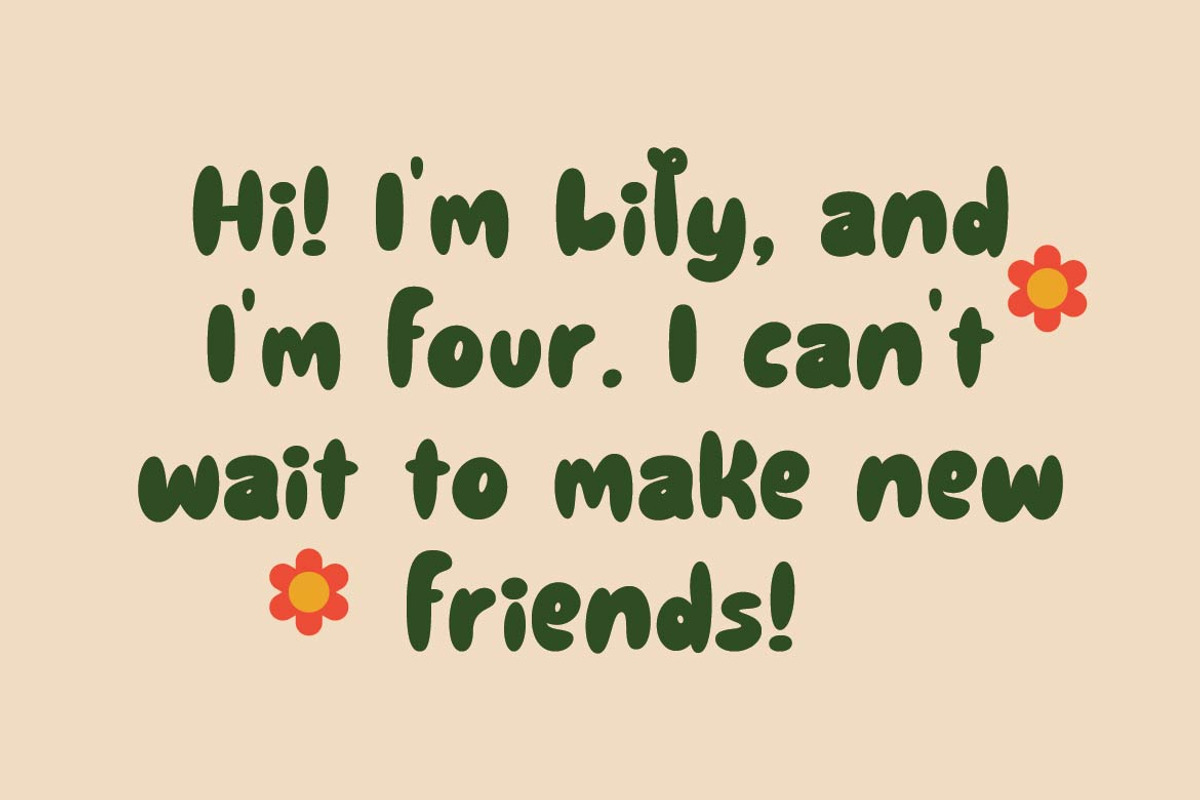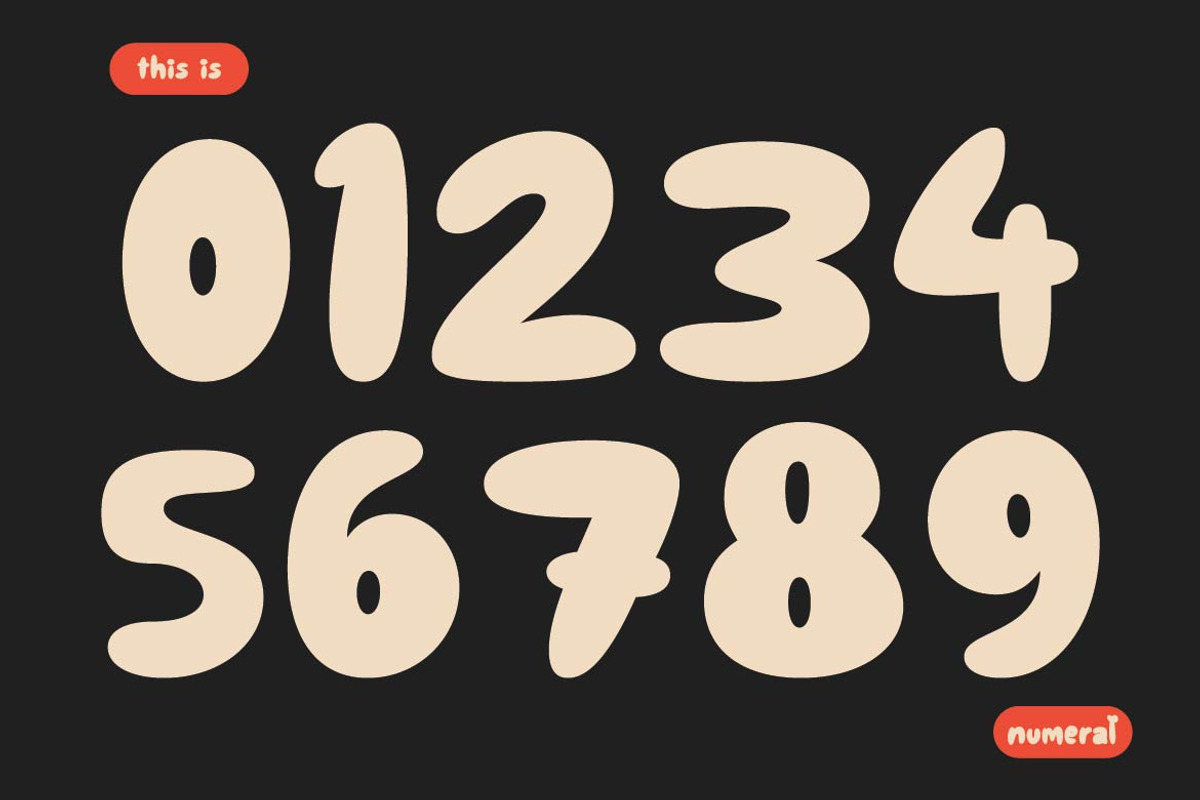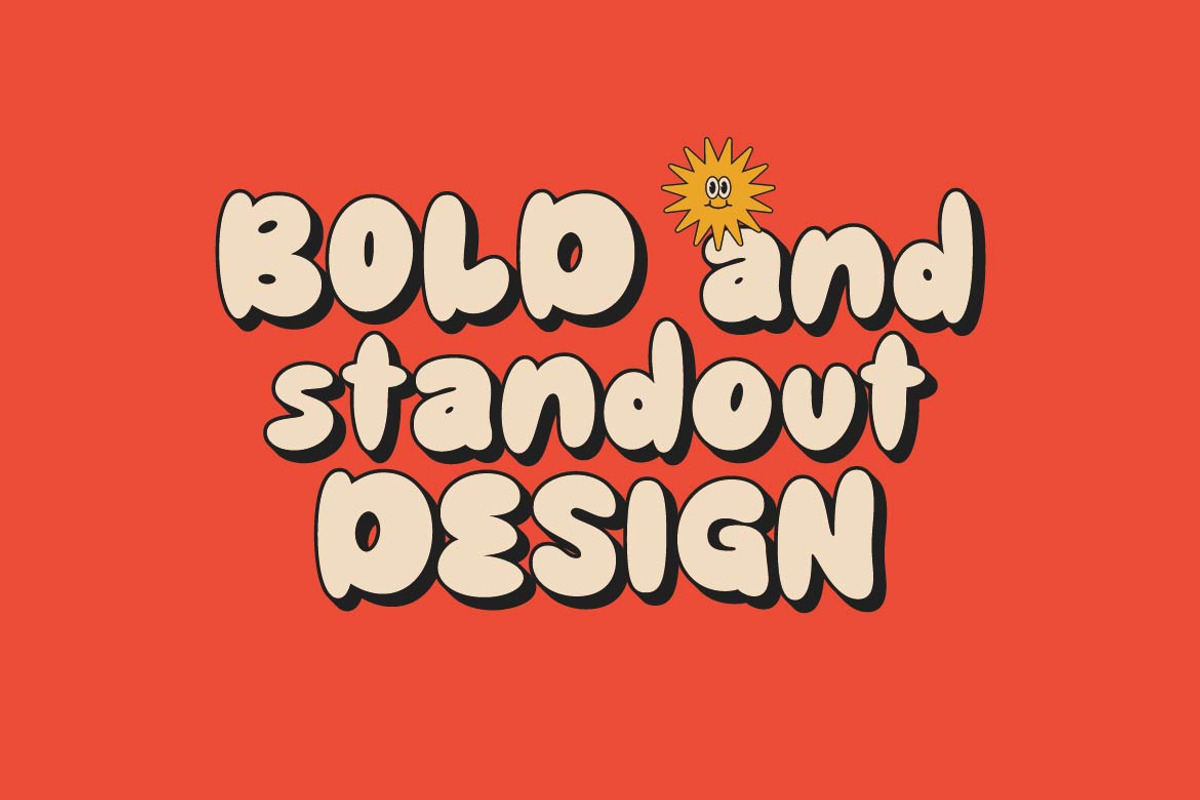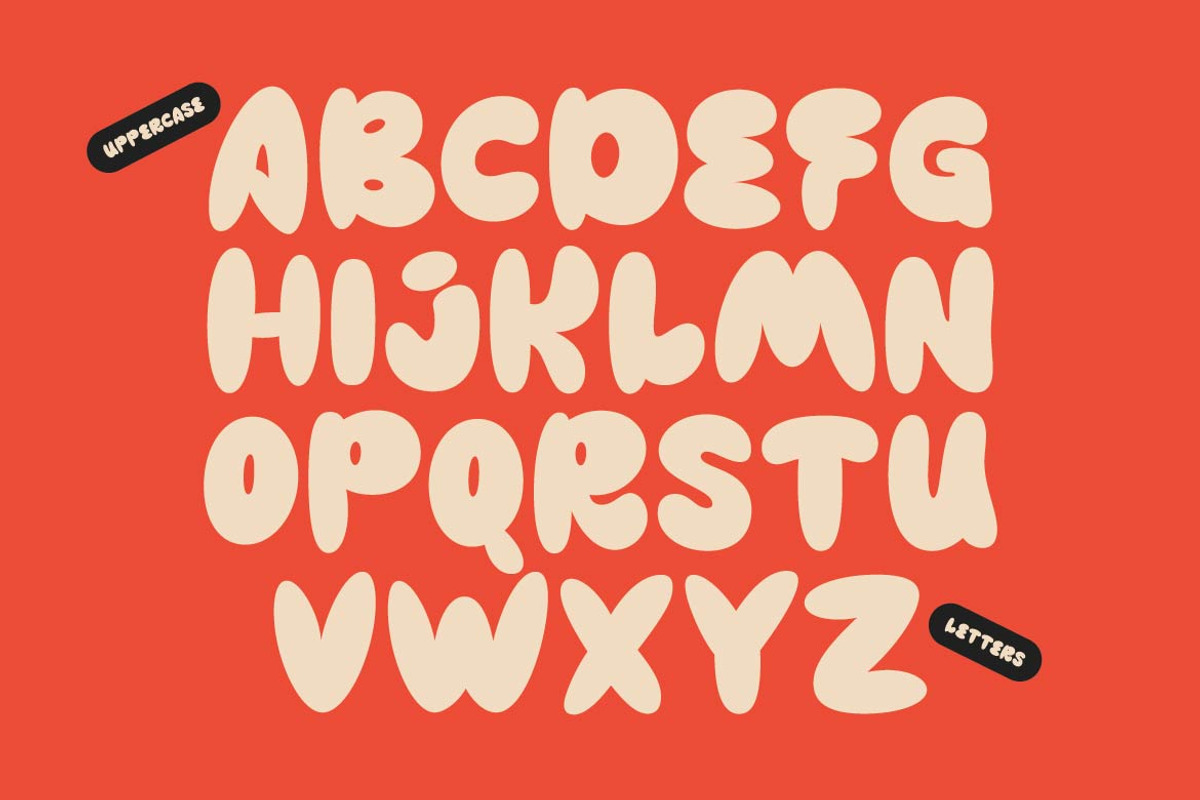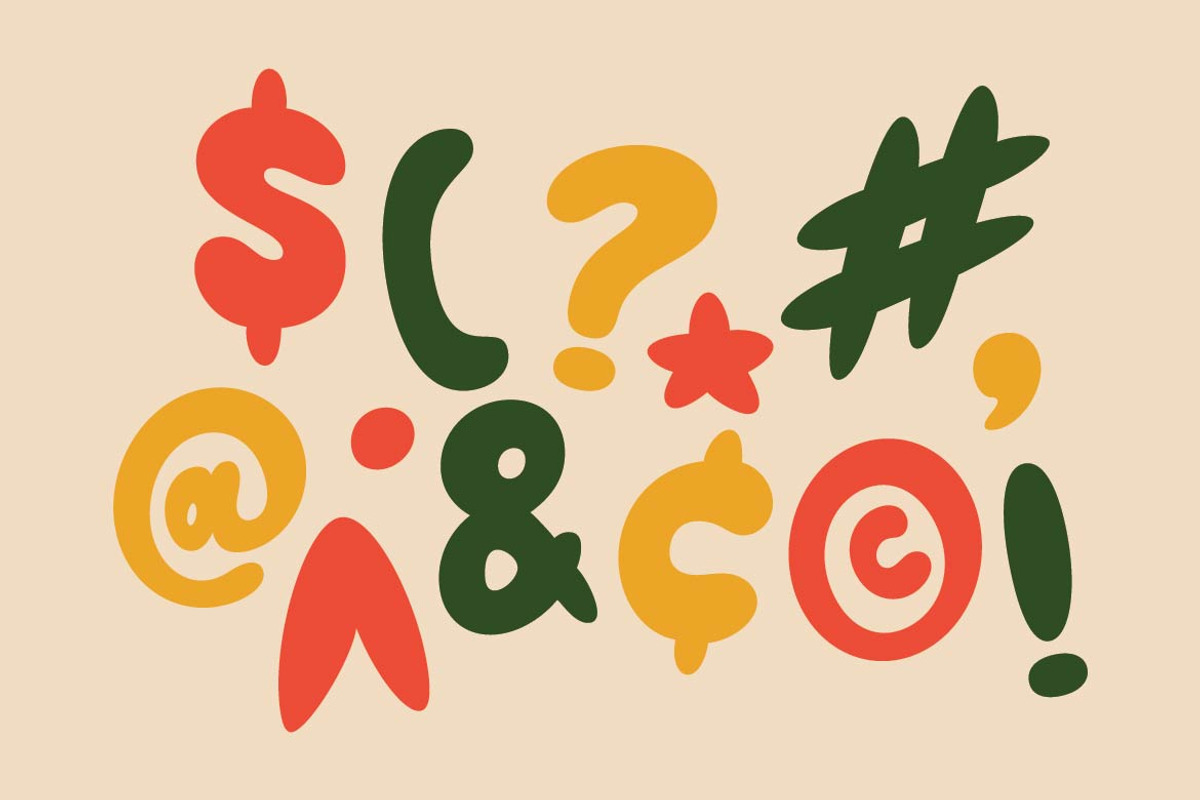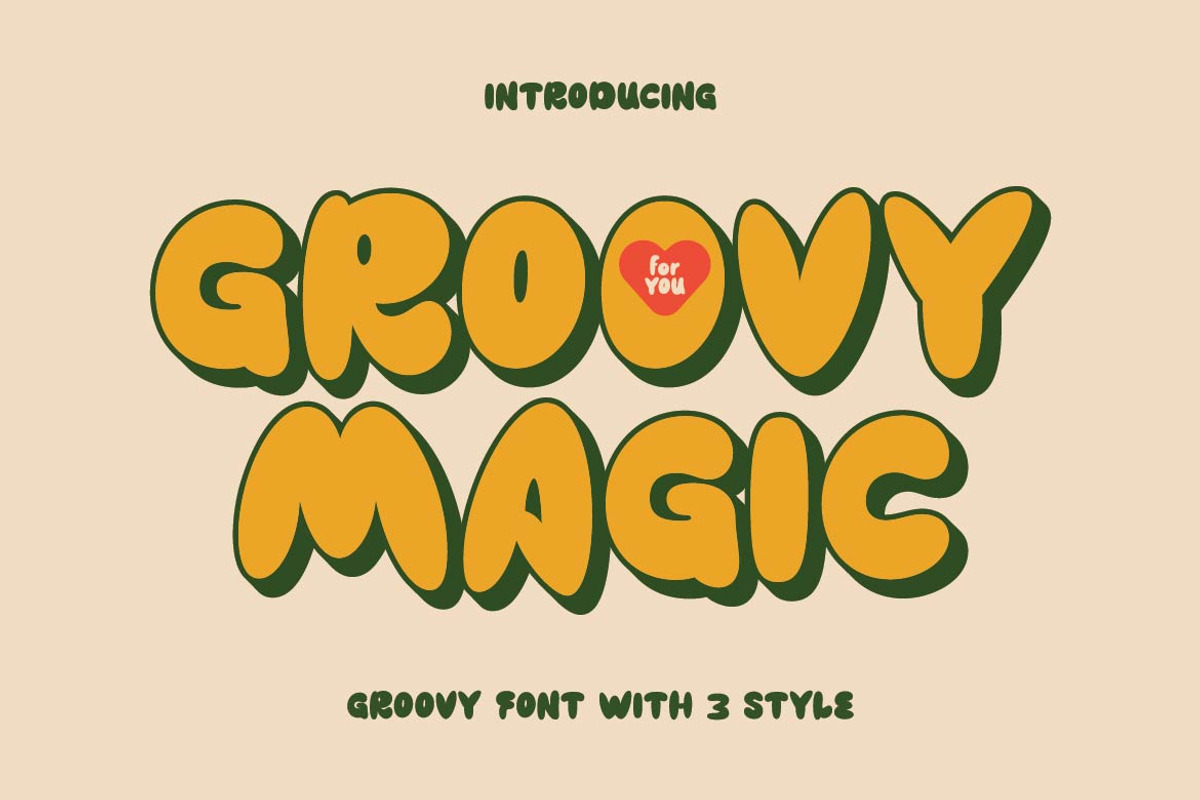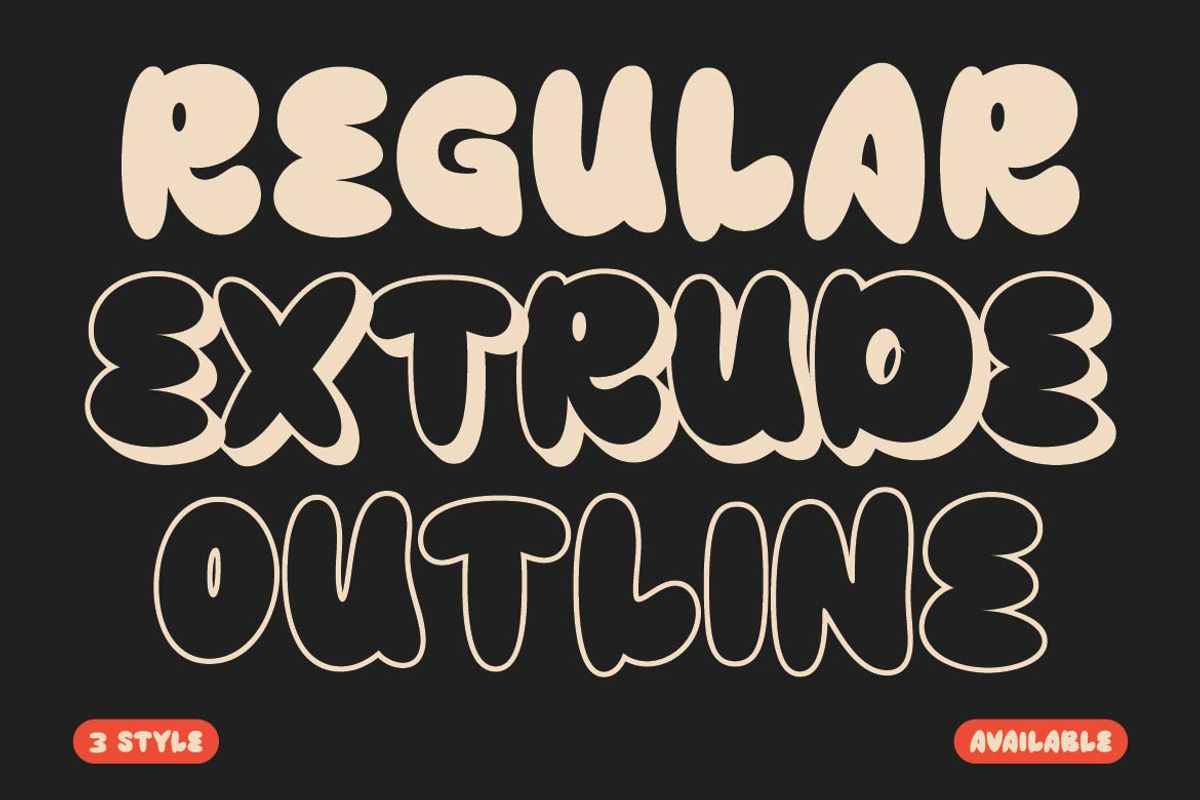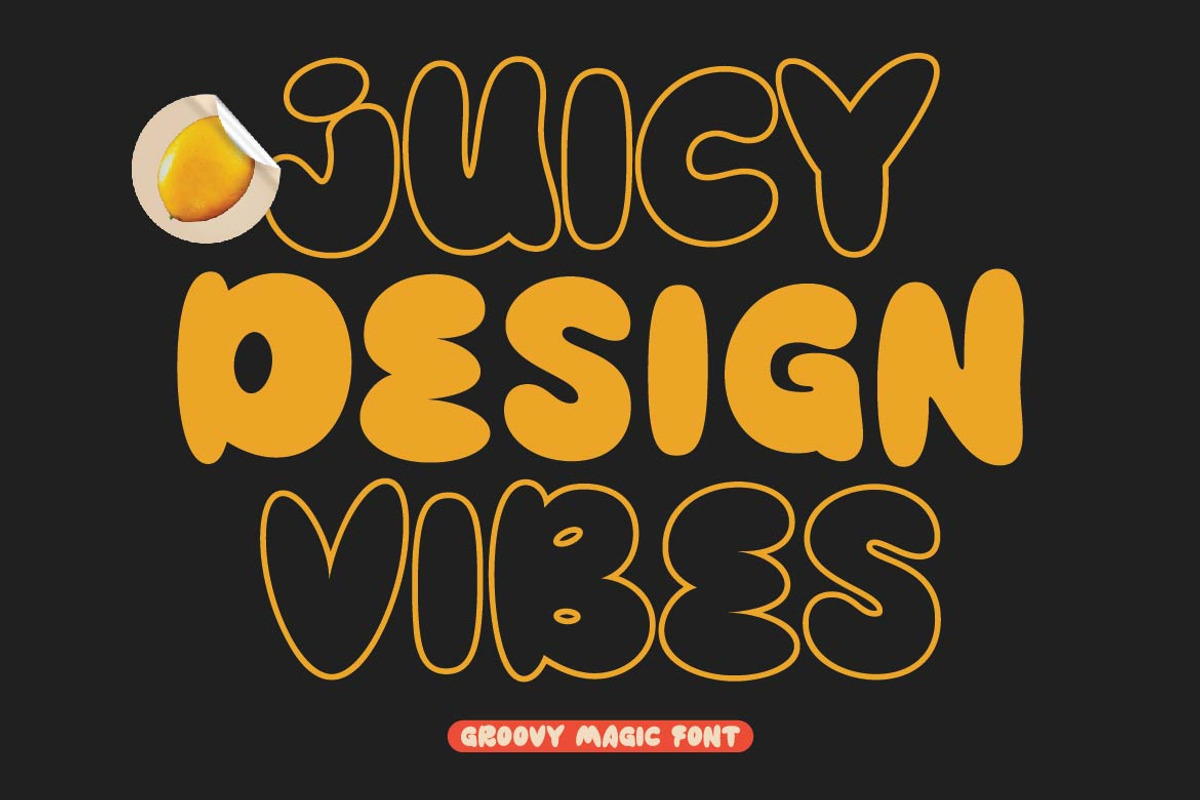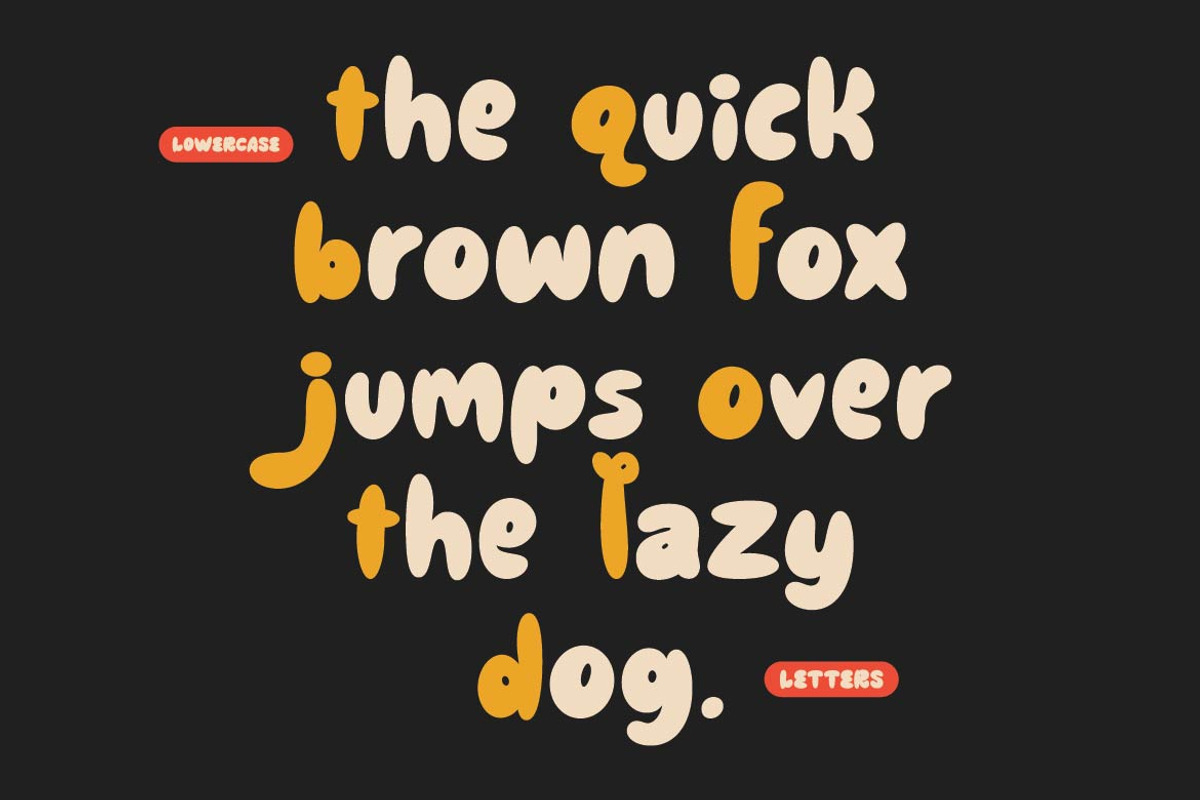
GF Magic - Retro Groovy Font
Groovy Magic is a fun, retro-themed display font that captures the essence of a bygone era.
With its playful, nostalgic design, this font brings a funky, vintage feel to your projects.
Perfect for creating eye-catching headlines, posters, or branding with a retro twist, Groovy Magic adds a touch of nostalgia and charm to any design.
This font include Regular, Extrude and Outline Style!
- Uppercase, Lowercase, Numeral, Punctuation & Multilingual.